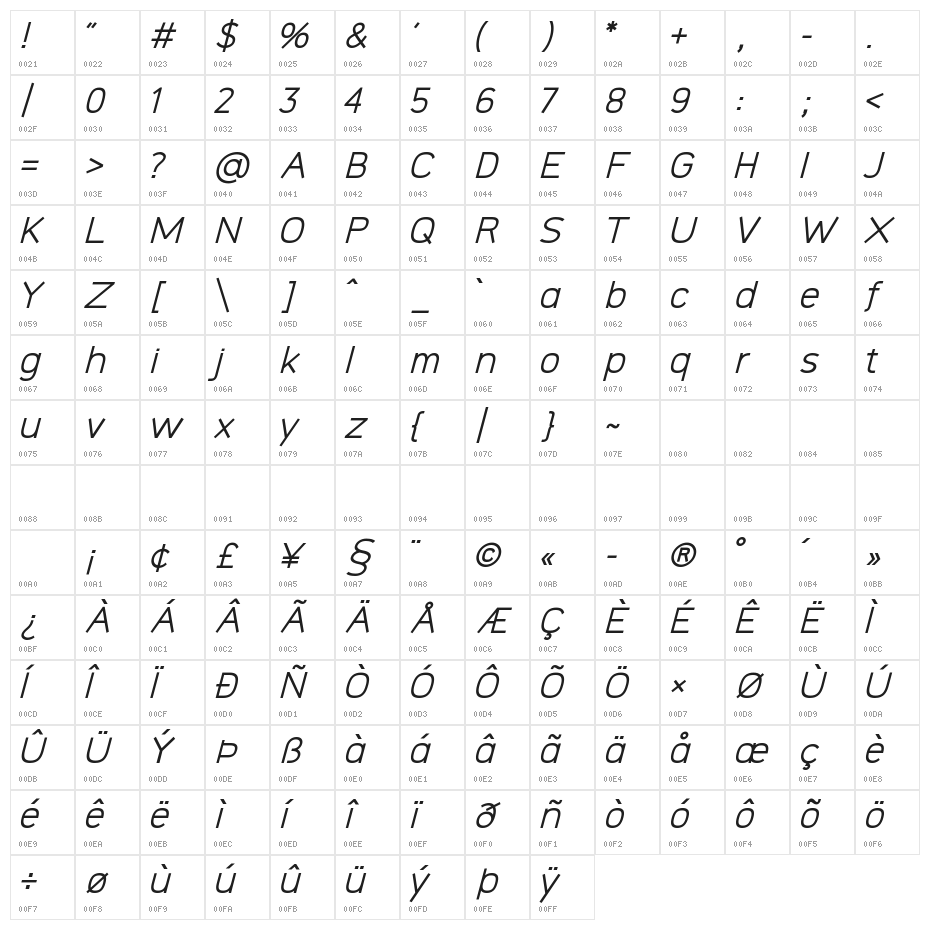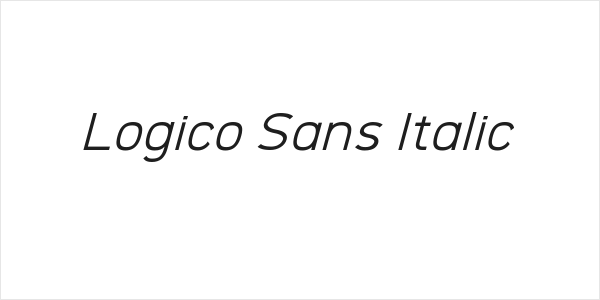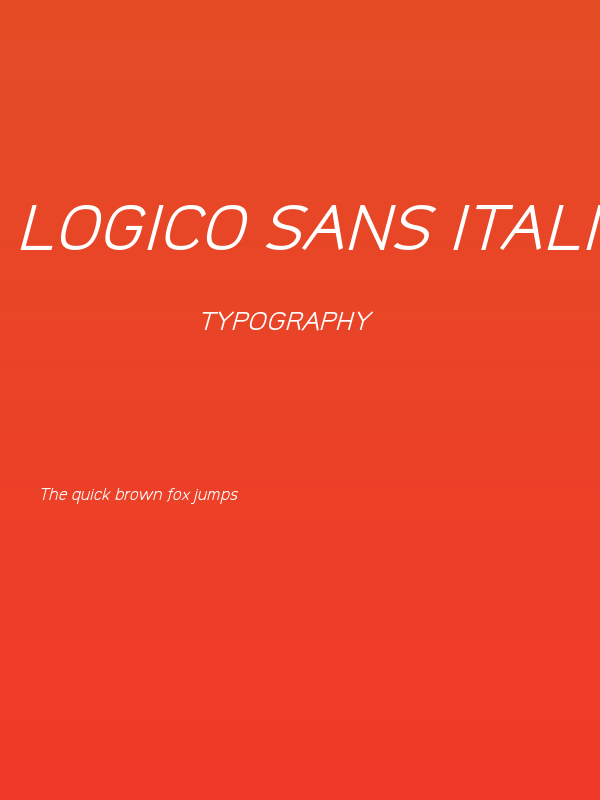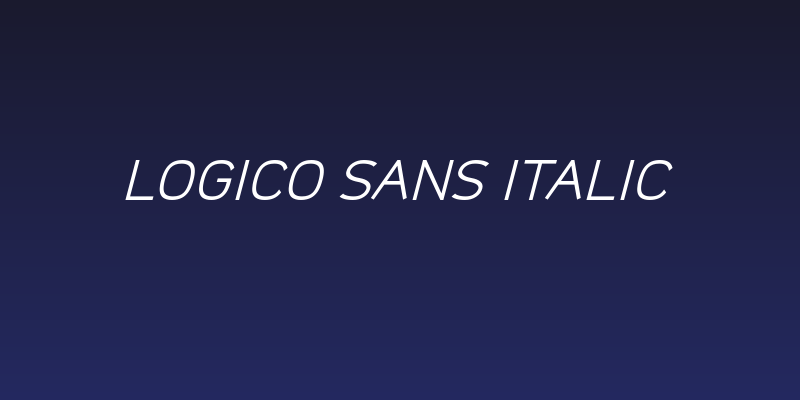
Logico Sans Italic Font
Logico Sans Italic Description
This font exhibits a clean and modern sans-serif style with a subtle italic slant, providing a sense of motion and elegance. The characters are well-proportioned, featuring smooth curves and a consistent stroke width that enhances readability. The uppercase letters maintain a balanced structure, while the lowercase letters offer a friendly and approachable appearance. The numerals are clear and distinct, making them suitable for various applications. Special characters are included, ensuring versatility in design projects. Overall, this font combines functionality with a sleek aesthetic, making it ideal for contemporary design needs.
| Proposed Projects | Ideal for branding, advertising, web design, and editorial projects where a modern and elegant touch is desired. |